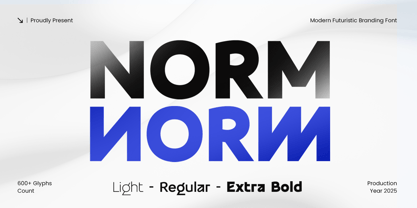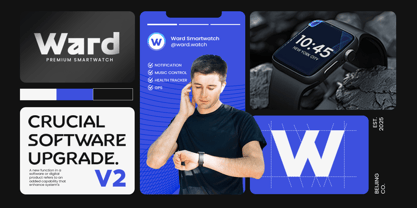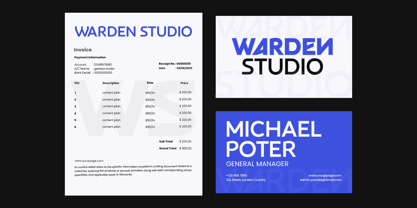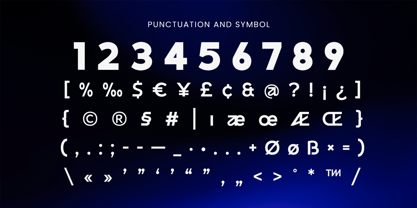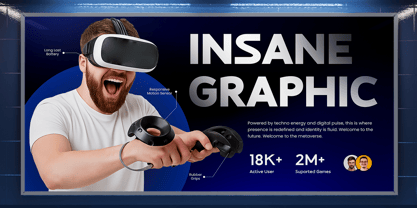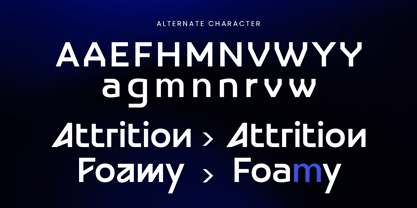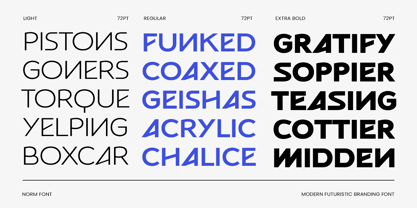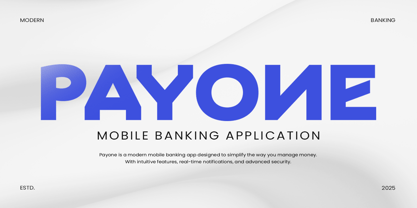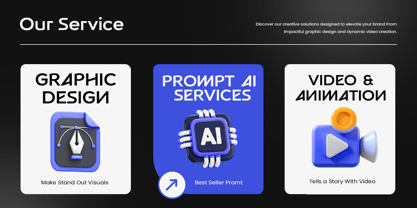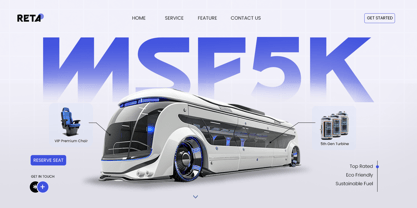
NORM is a modern futuristic branding font designed with clean geometry, sleek angles, and a forward-thinking aesthetic. Crafted for brands that want to appear advanced, innovative, and contemporary, this typeface brings clarity and modern structure to every visual identity.
With its minimal construction and precise letterforms, NORM excels in logo design, app interfaces, tech products, digital branding, and bold editorial layouts. Its futuristic vibe blends sophistication with simplicity, making it suitable for startups, technology companies, gaming brands, and cutting-edge creative studios.
Whether you’re building a modern identity system, bold headline composition, or visual-heavy digital layout, NORM offers versatility, readability, and a polished contemporary feel across both print and screen applications.
Features
Modern futuristic design ideal for branding & tech logos
Clean geometric structure for a sleek, professional look
Perfect for digital products, UI/UX, gaming, and editorial layouts
Strong visual presence for headlines and identity systems
Uppercase, lowercase, numerals, and punctuation included
OpenType features for advanced creative control
Multilingual Support
Bring futuristic clarity to your identity with NORM – the ultimate modern branding font for tech-forward and innovative design. ⚡✨